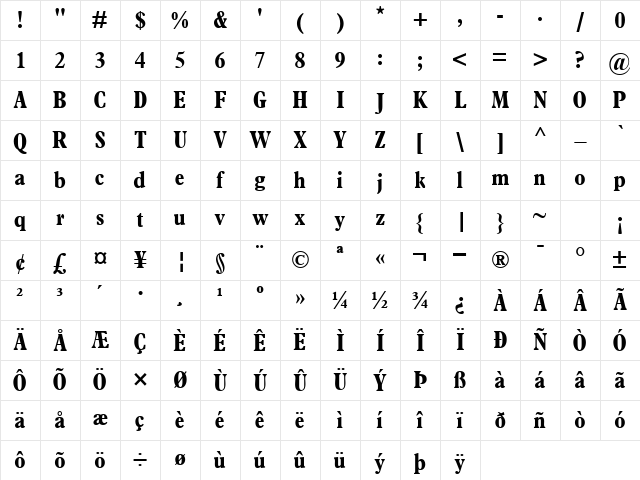
TerminusBlackCondSSK Regular
Design Context for TerminusBlackCondSSK
TerminusBlackCondSSK is a composed and adaptable typeface that performs quietly and consistently across a wide range of design contexts. Its narrow stance lets it pack a punch even in space-constrained designs.